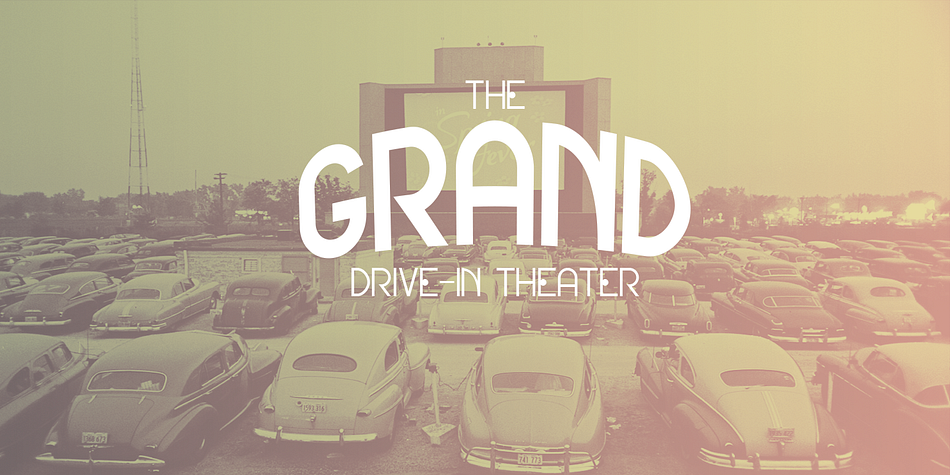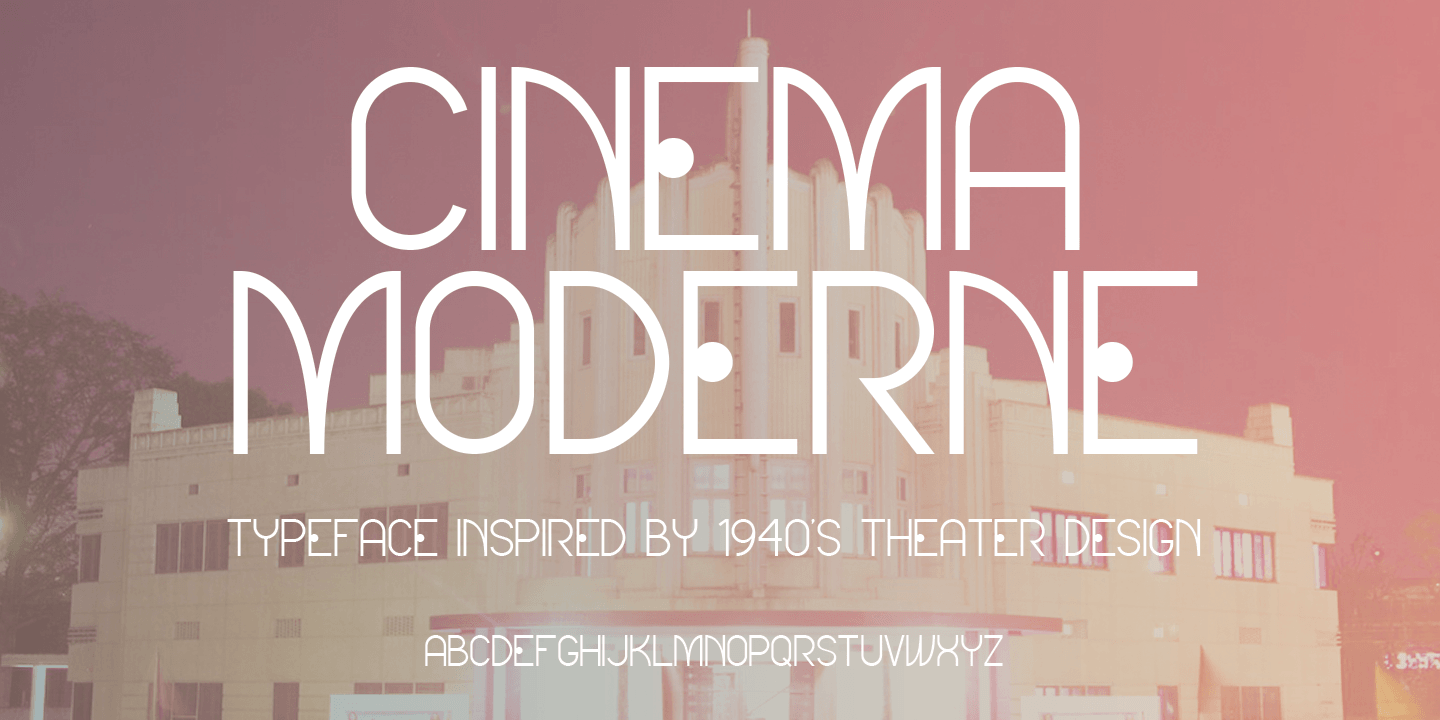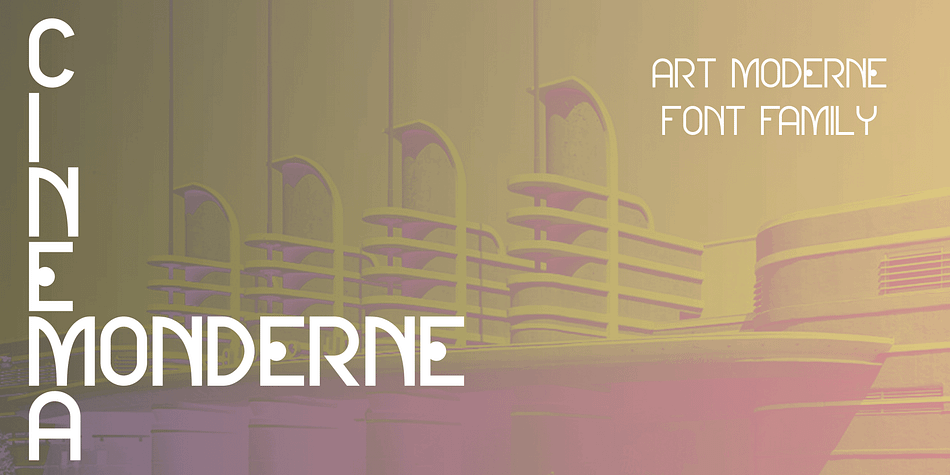
Cinema Moderne is a display sans and art deco font family. This typeface has nine styles and was published by The Rivertown Inkery.
Cinema Moderne is created to pay homage to he fabulous small town theaters from 1930’s and 40’s America. This unique font plays off of the Art Moderne and art deco style of the day. Art Moderne some times called Streamline Moderne design architecture emphasized curving forms, long horizontal lines, and sometimes nautical elements.
Many of these masterpiece buildings have been lost forever. Some have managed to find new life with a new function. Cinema Moderne was created to preserve a small piece of that history forever. This font is to encourage the appreciation of the neighborhood theater culture as well as the grand style of the buildings. Comes in 9 different weights for one low price, or as individual fonts.